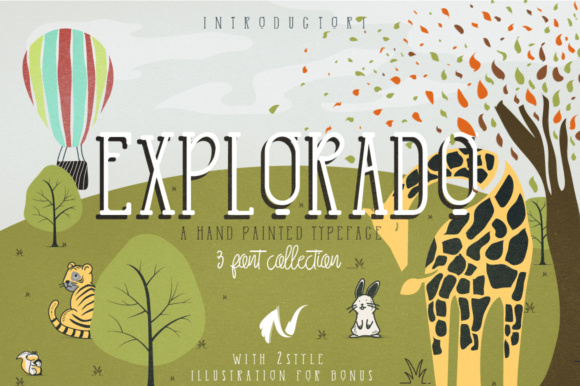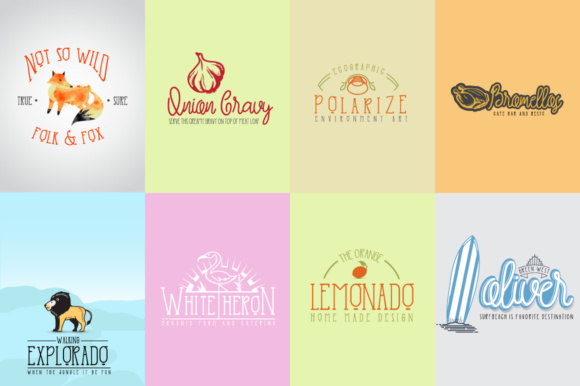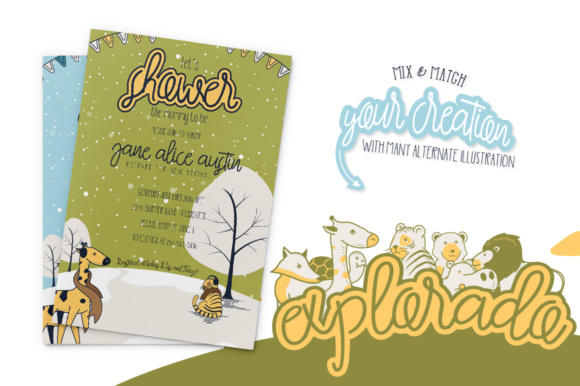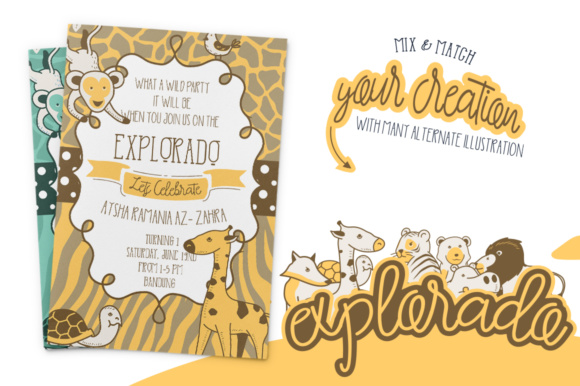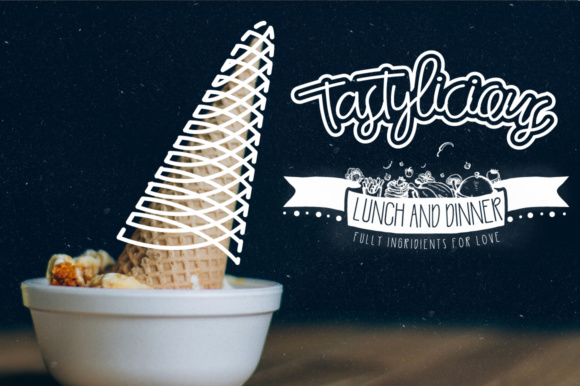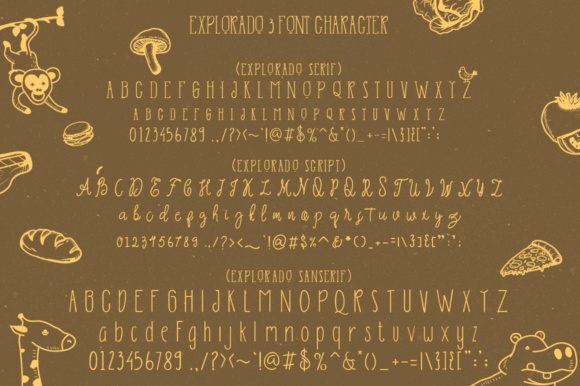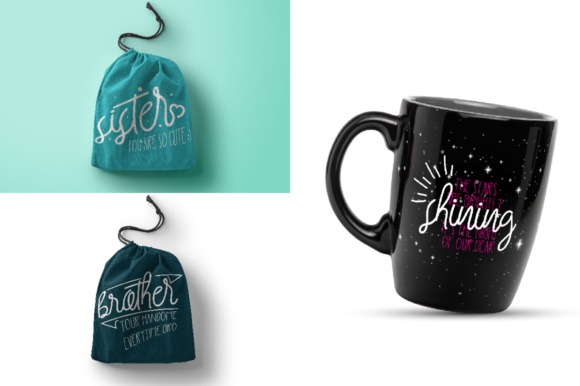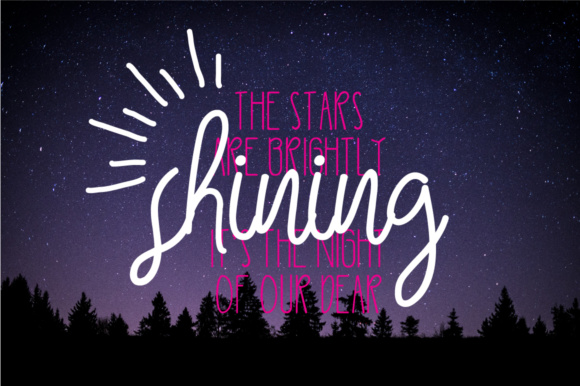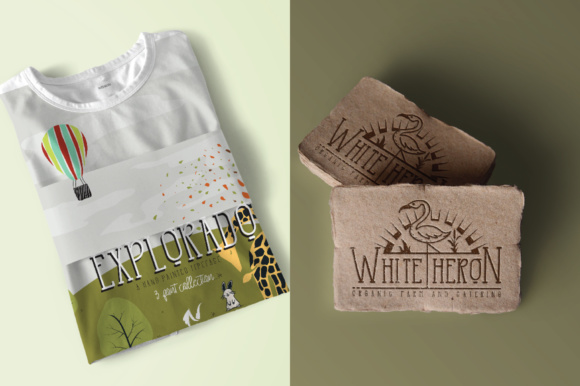
Explorado Font
About Explorado Font
Explorado is a beautiful and whimsical hand-lettered script, perfect for displays and headlines. This font comes in different styles and has bonus illustrations so you can make adorable and fun designs.